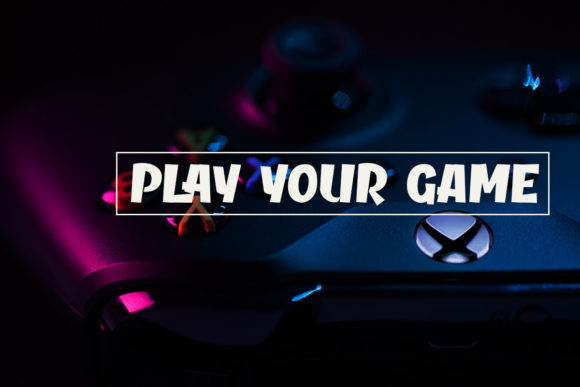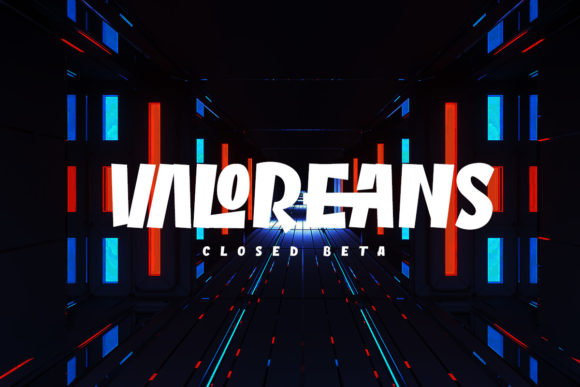
Fantasea Font: The Ultimate Choice for Creative Designs
Fantasea Font is a stunning, bold, and thick lettered display font that has been making waves in the design community. Its unique and playful style makes it an excellent choice for a wide range of creative projects, from cartoon-related designs and children’s games to any creation that requires a lovely touch. In this article, we’ll dive into the world of Fantasea Font, exploring its features, benefits, and uses, as well as provide tips and inspiration for designers and crafters.
What is Fantasea Font?
Fantasea Font is a display font designed to make a statement. Its bold and thick lettering gives it a distinctive look that’s both fun and engaging. The font is perfect for designs that require a playful and imaginative touch, making it an excellent choice for children’s books, games, and cartoons. However, its versatility means it can also be used for a wide range of other creative projects, from posters and flyers to logos and branding.
Key Features of Fantasea Font
- Bold and Thick Lettering: Fantasea Font features bold and thick lettering that gives it a unique and eye-catching look.
- Playful and Fun: The font’s playful and fun style makes it perfect for designs that require a lighthearted and imaginative touch.
- Highly Versatile: Fantasea Font can be used for a wide range of creative projects, from children’s books and games to posters and branding.
- Easily Readable: Despite its bold and thick lettering, Fantasea Font is easily readable, making it perfect for designs that require a clear and concise message.
Benefits of Using Fantasea Font
So, why should you choose Fantasea Font for your next creative project? Here are just a few benefits of using this amazing font:
- Adds a Touch of Whimsy: Fantasea Font adds a touch of whimsy and playfulness to any design, making it perfect for projects that require a lighthearted and imaginative touch.
- Grabs Attention: The font’s bold and thick lettering grabs attention and makes a statement, ensuring your design stands out from the crowd.
- Easy to Use: Fantasea Font is easy to use and pairs well with a wide range of other fonts, making it perfect for designers of all skill levels.
Using Fantasea Font in Your Designs
So, how can you use Fantasea Font in your designs? Here are a few ideas to get you started:
- Children’s Books and Games: Fantasea Font is perfect for children’s books and games, adding a touch of whimsy and playfulness to any design.
- Posters and Flyers: The font’s bold and thick lettering makes it perfect for posters and flyers that require a clear and concise message.
- Logos and Branding: Fantasea Font can be used to create unique and memorable logos and branding that stand out from the crowd.
To get the most out of Fantasea Font, here are a few tips and inspiration to keep in mind:
- Experiment with Colors: Fantasea Font looks amazing in a wide range of colors, so don’t be afraid to experiment and find the perfect hue for your design.
- Pair with Other Fonts: The font pairs well with a wide range of other fonts, so try pairing it with different fonts to create a unique and interesting look.
- Use for Headings and Titles: Fantasea Font is perfect for headings and titles, adding a touch of whimsy and playfulness to any design.
In conclusion, Fantasea Font is an amazing choice for designers and crafters looking to add a touch of whimsy and playfulness to their creative projects. Its bold and thick lettering, playful and fun style, and high versatility make it perfect for a wide range of designs, from children’s books and games to posters and branding. With its ease of use and clear readability, Fantasea Font is a must-have font for any designer or crafter looking to take their designs to the next level.